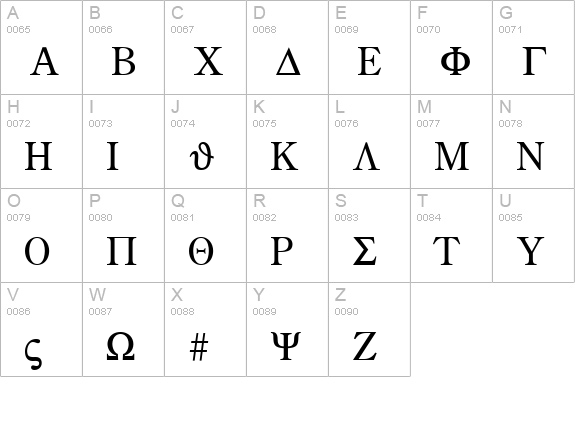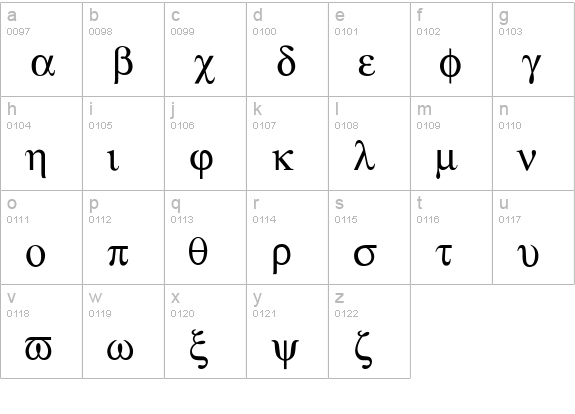
GreekMathSymbols Font Details
GreekMathSymbols font is a meticulously crafted typeface that beautifully captures the elegance and precision of Greek mathematical symbols. Each character in this font is designed with utmost attention to detail, making it ideal for academic publications, scientific papers, and mathematical documents. This font features a wide range of Greek symbols commonly used in mathematical equations, providing users with a comprehensive set of tools to enhance their mathematical expressions. The GreekMathSymbols font is not only visually appealing but also highly functional, ensuring clarity and readability in complex mathematical contexts. Best of all, GreekMathSymbols font is available for free download at FontsMarket.com, allowing users to easily access this valuable resource without any cost. Whether you are a mathematician, scientist, or student, this font is a must-have addition to your typography collection. Elevate your mathematical presentations and documents with the GreekMathSymbols font today!